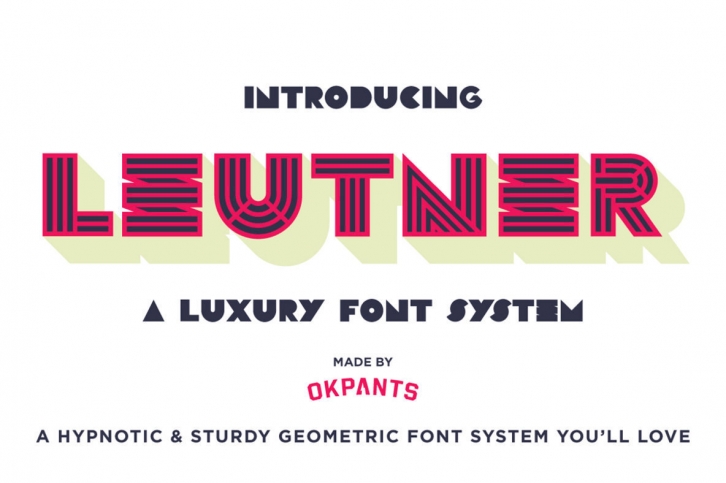
WHAT IS LEUTNER?
Named after the dining hall that Aaron would sneak into while attending art school, Leutner is an eyeball-grabbing, hypnotic and sturdy geometric font inspired by the late 20th century (while still maintaining it's own unique personality).
It's also a four typeface, layered type system. So you can create eye-catching typography in seconds.
WHAT'S A LAYERED TYPE SYSTEM
A layered type system like Leutner takes all of the hassles out of building great looking type work.
Let's say you wanted to create some custom 3D type with your run-of-the-mill font. You'd have to manually build of the 3D elements, add fill layers, and then tweak each layer to try to get it all lined up and looking good.
With a font like Leutner the process is effortless (but still gives you tons of control to tweak it how you like).
All you have to do is type your words, choose a color, copy and paste the font on top of itself, and then choose your next layer (Main, Fill, Base or 3D). By mixing and matching font styles and colors you can build amazing looking type work in seconds.
• Layered type system designed by Aaron Sechrist of OKpants, a small independent design studio in Cleveland, Ohio
• Layers include Main, Fill, Base and 3D (so you can quickly adapt Leutner to your project)